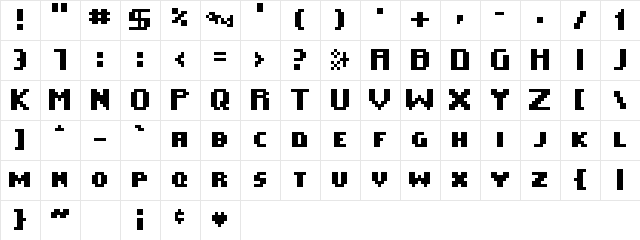
EaseOfUse Medium Font Preview
EaseOfUse Medium
Design Context for EaseOfUse Typeface
EaseOfUse takes a measured approach to typography — its balanced proportions and neutral character make it a reliable workhorse for both digital and print work.